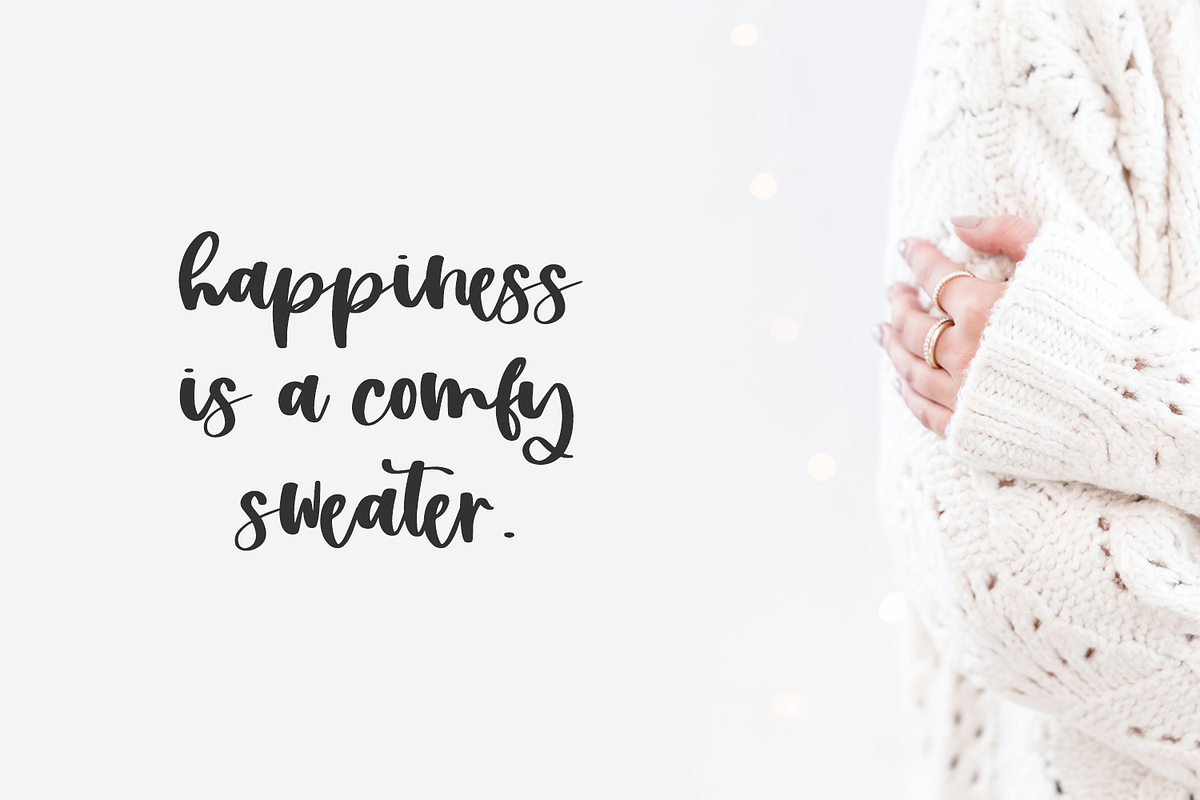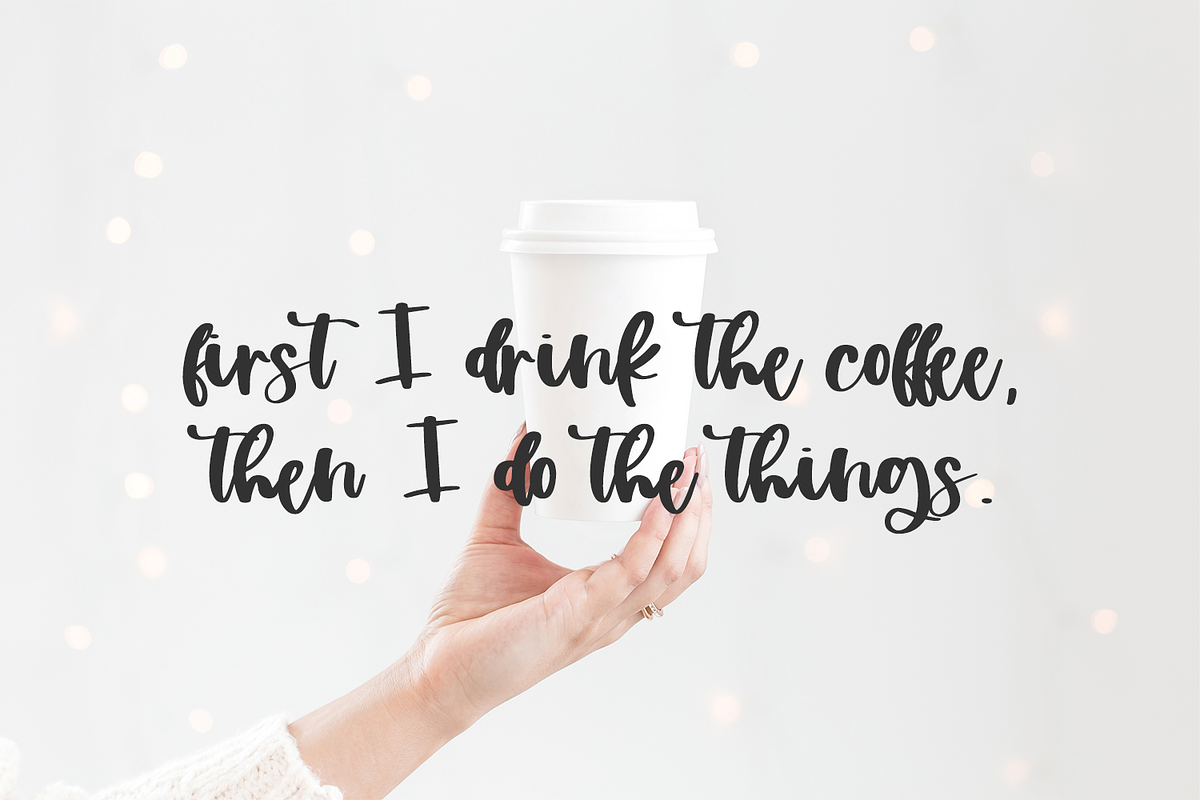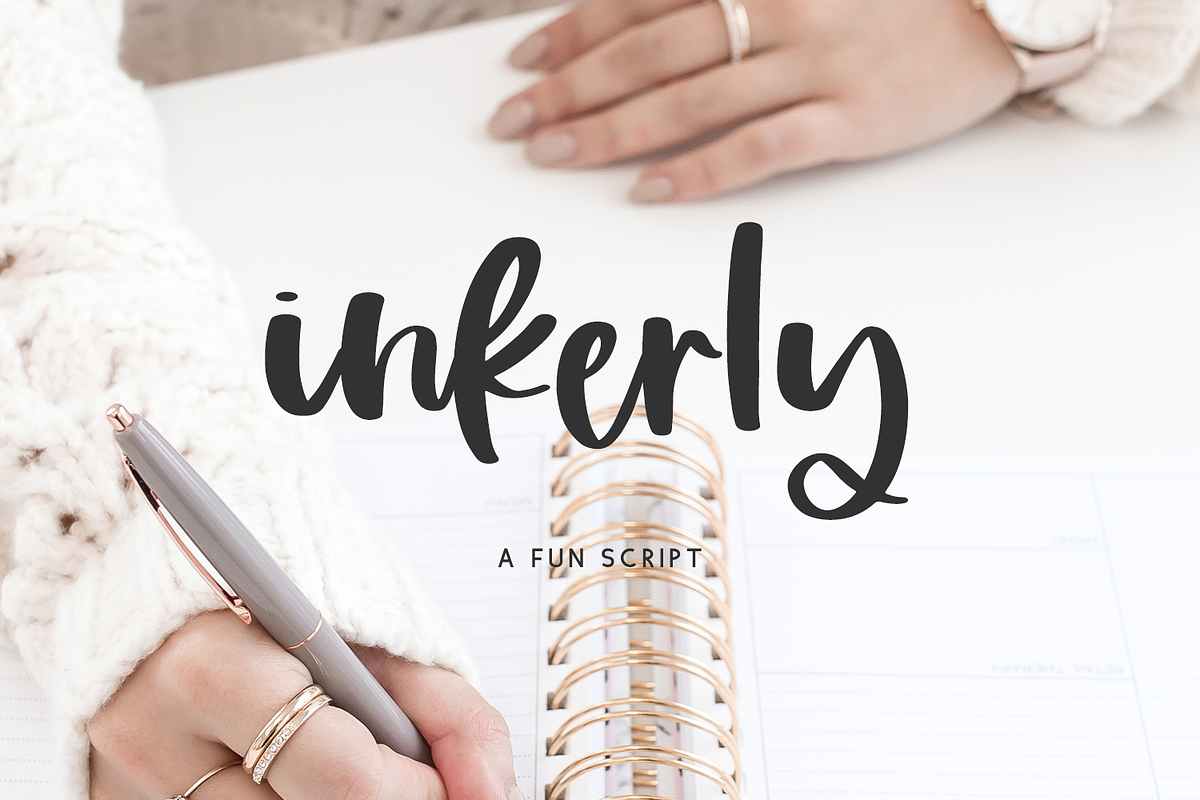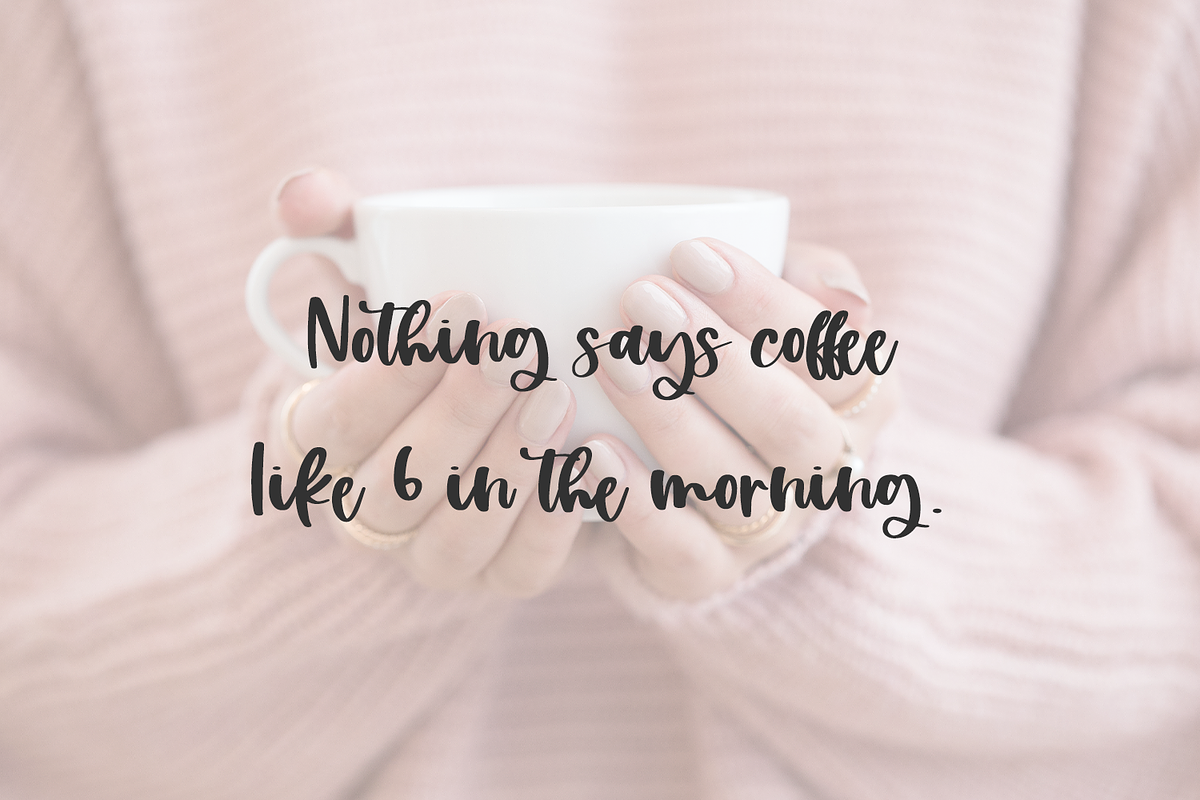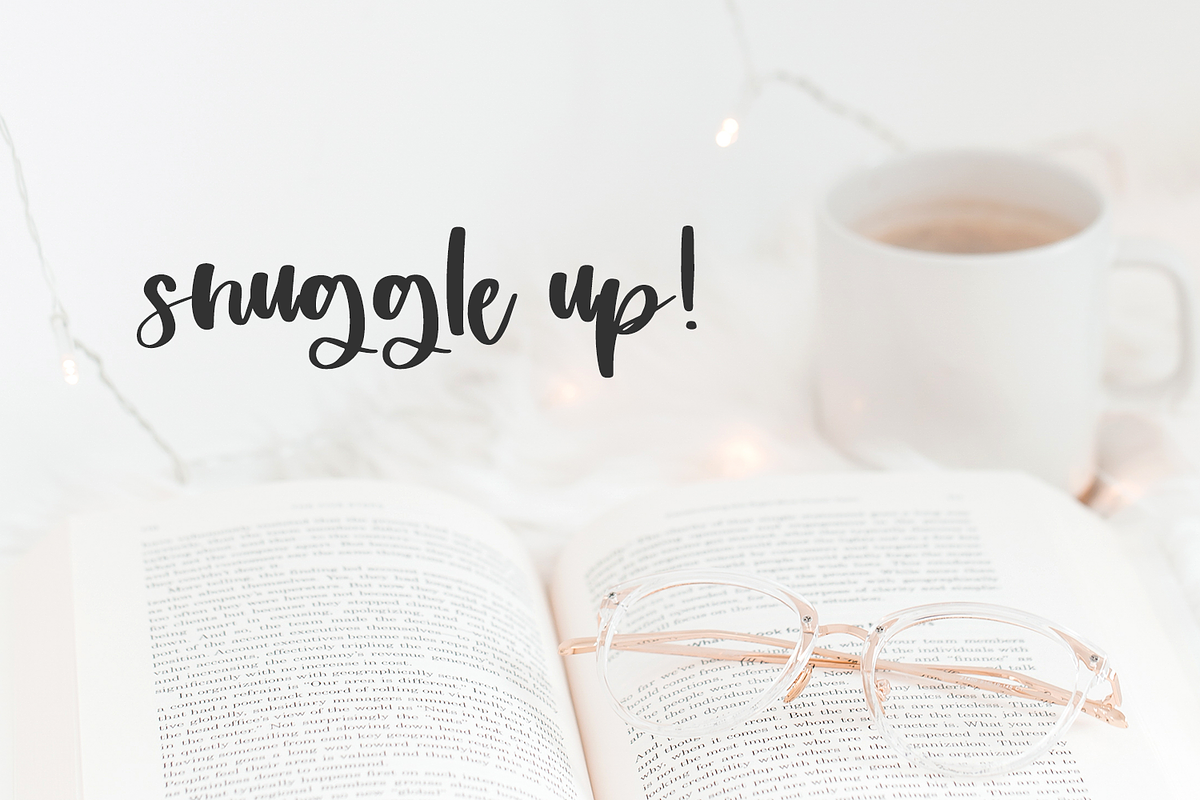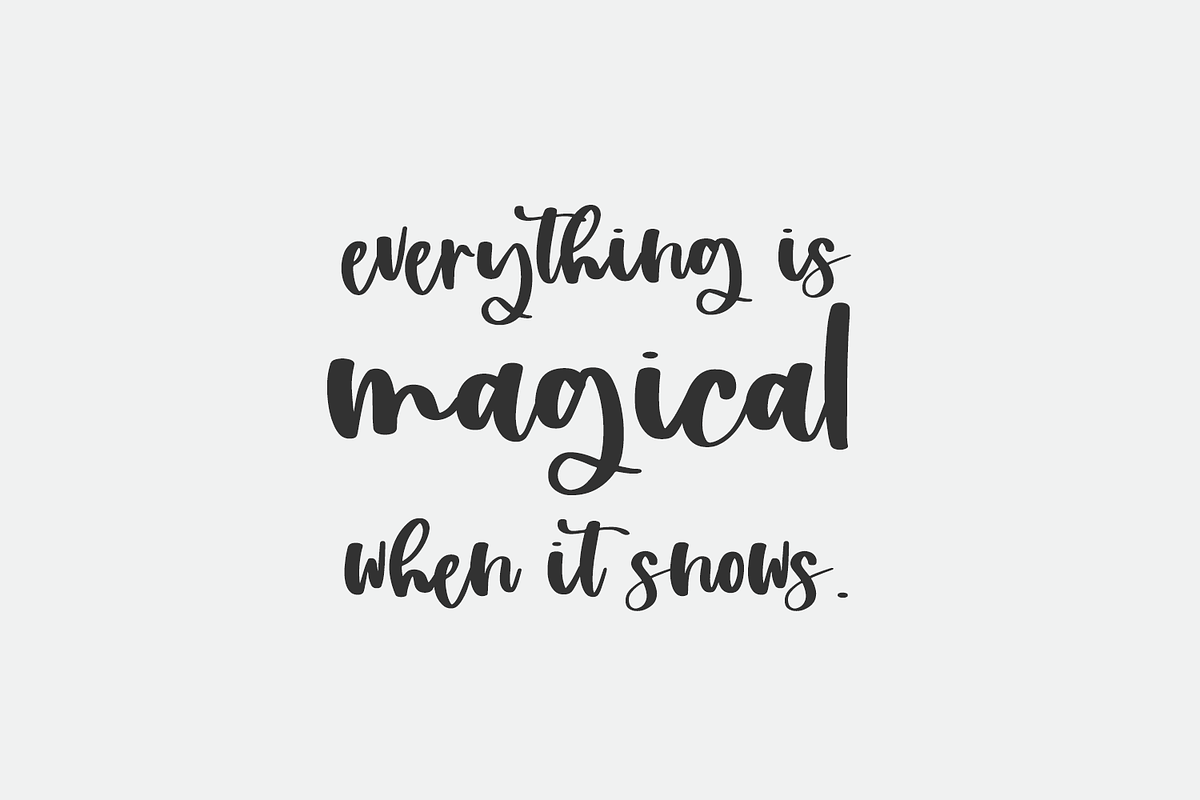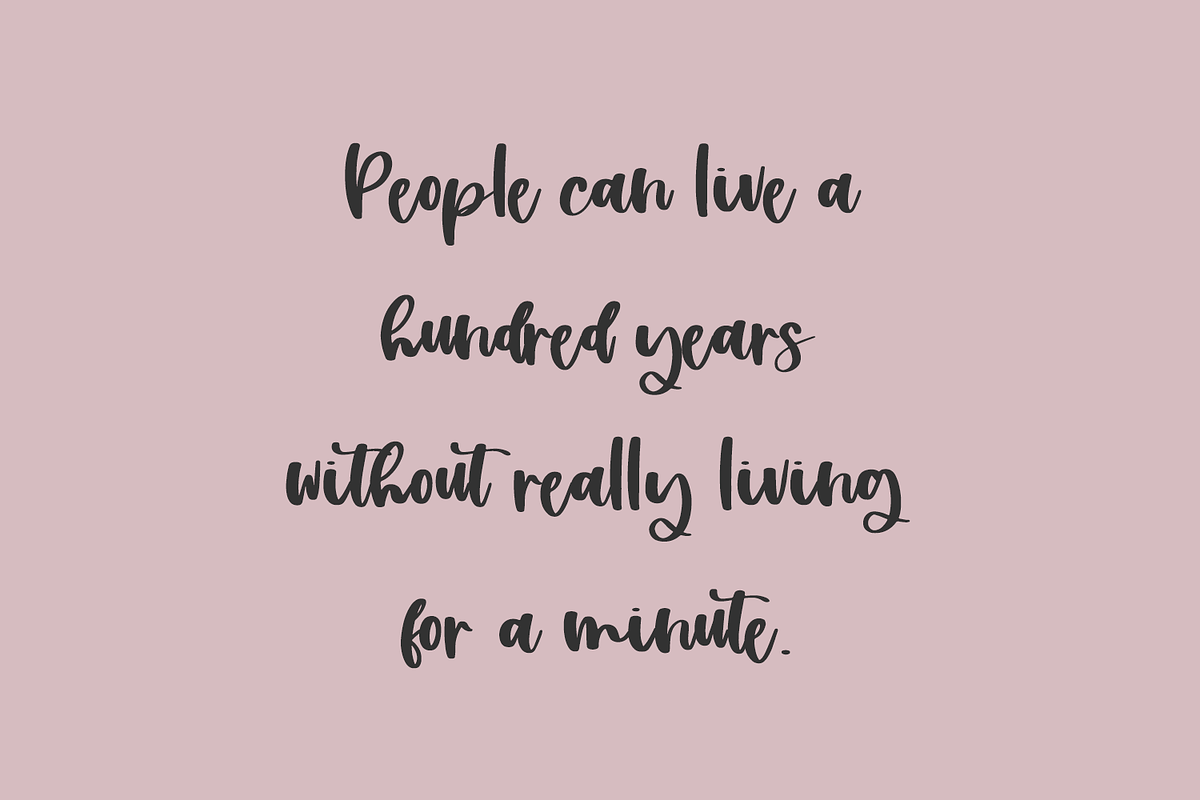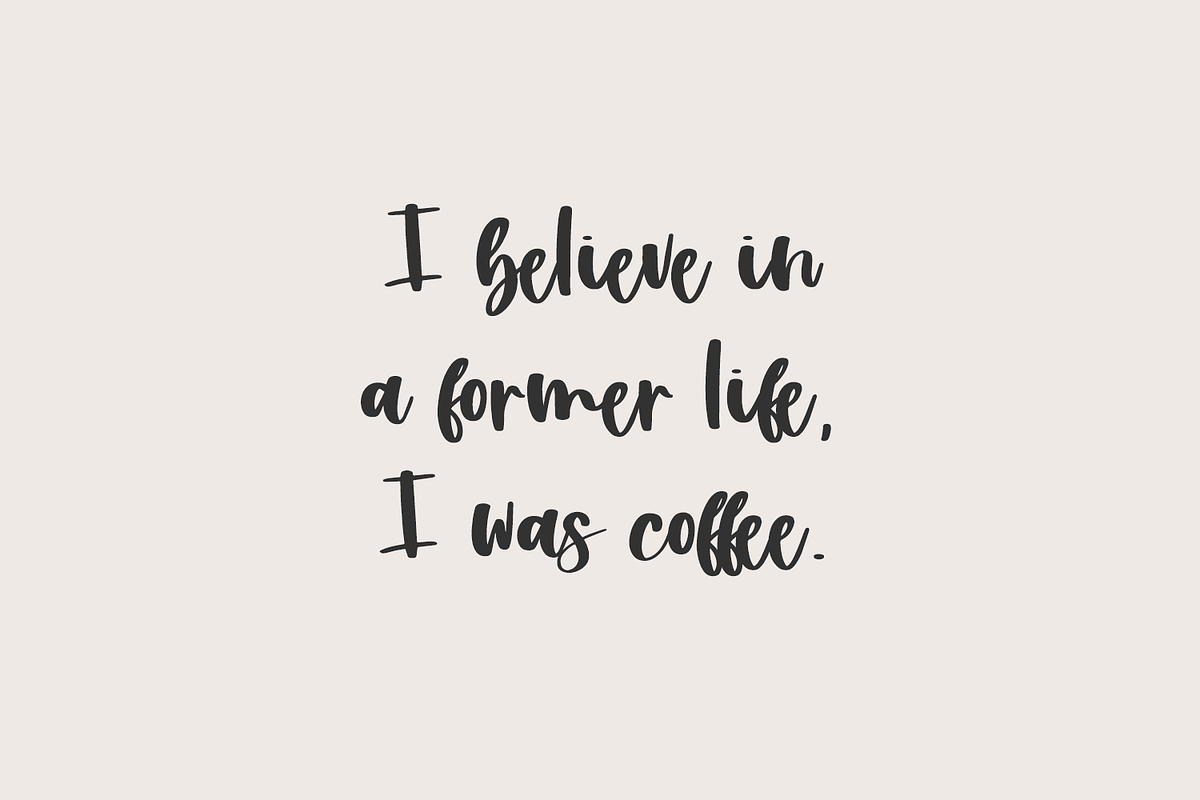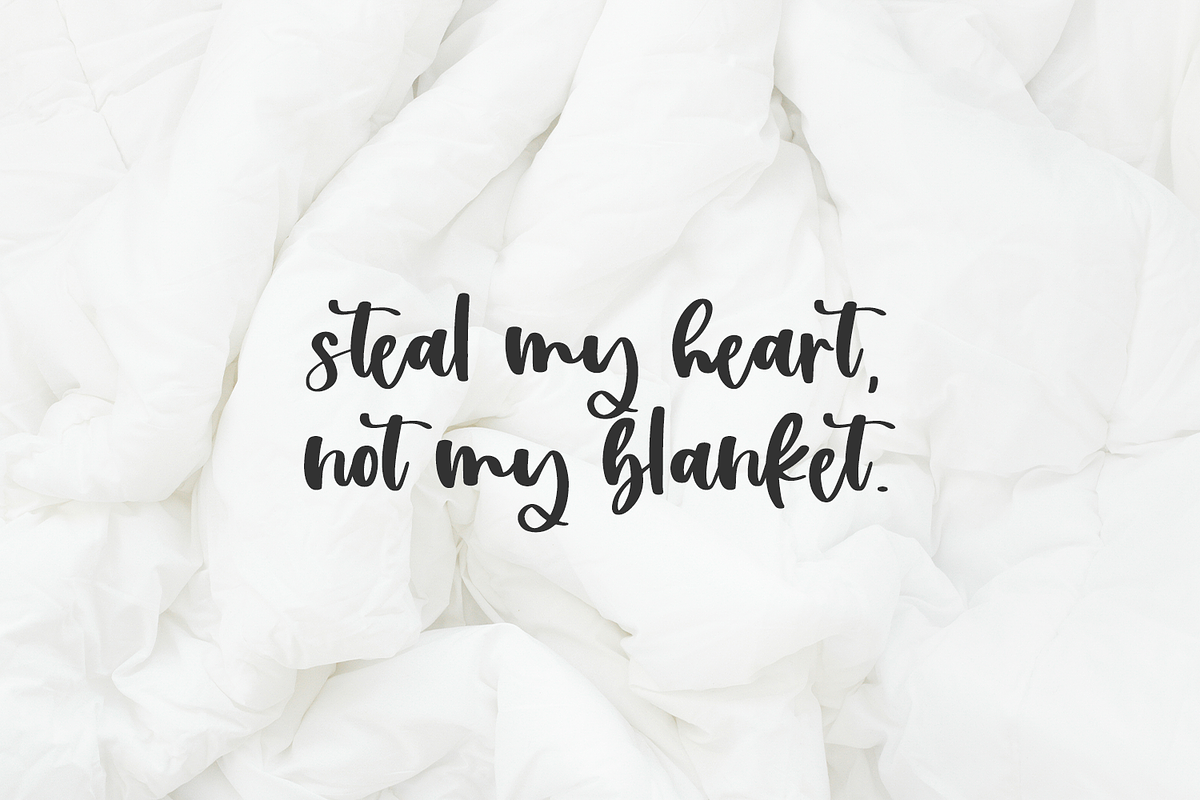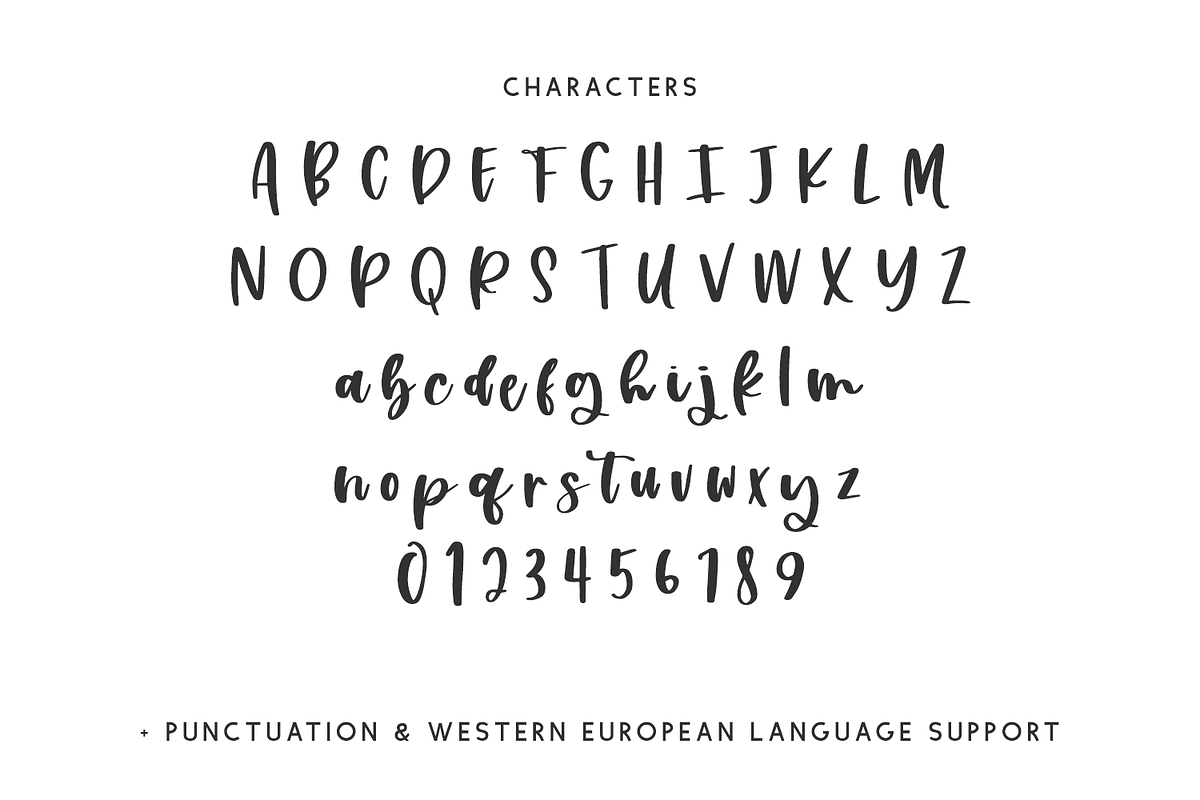
Inkerly Script
Introducing Inkerly, a chunky handlettered font. Inkerly features a semi-script look with a cute bouncy baseline.
Inkerly is best for:
- crafting with your Cricut or Silhouette machine, as it features super smooth lines for an easy cut
- logos + branding
- clean print design, like magazines + flyers
- header elements that need handwritten touch
- quote graphics for social media